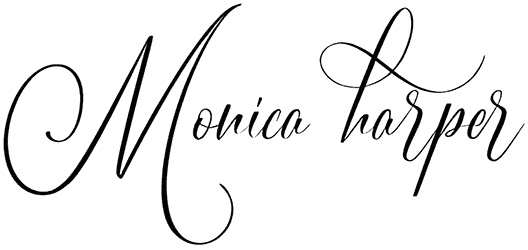
Monica Harper Font
Sometimes a single calligraphy font like Monica Harper can make such a great change in your business cards that you can’t believe your eyes. Besides that, there’s a pretty good chance of finding it on holiday postcards, any document needing signatures, wedding invitations, or some other fancy design work.
Even though the whole style is pretty delicate and the lowercase letters are very small, this handsome cursive font does a great favor to your professional identity with its impeccable tastefulness.